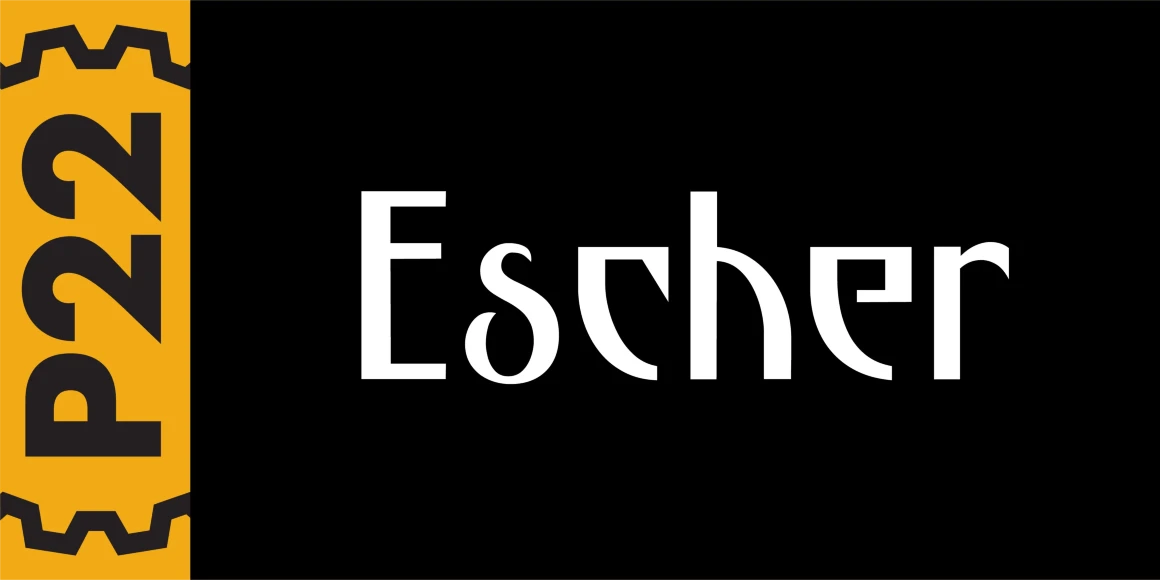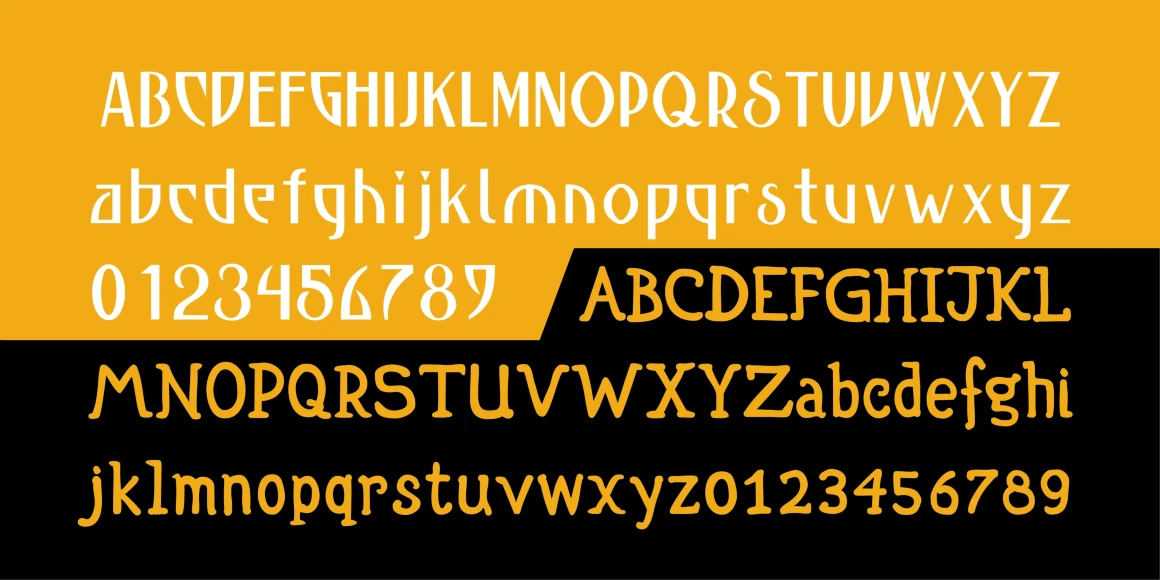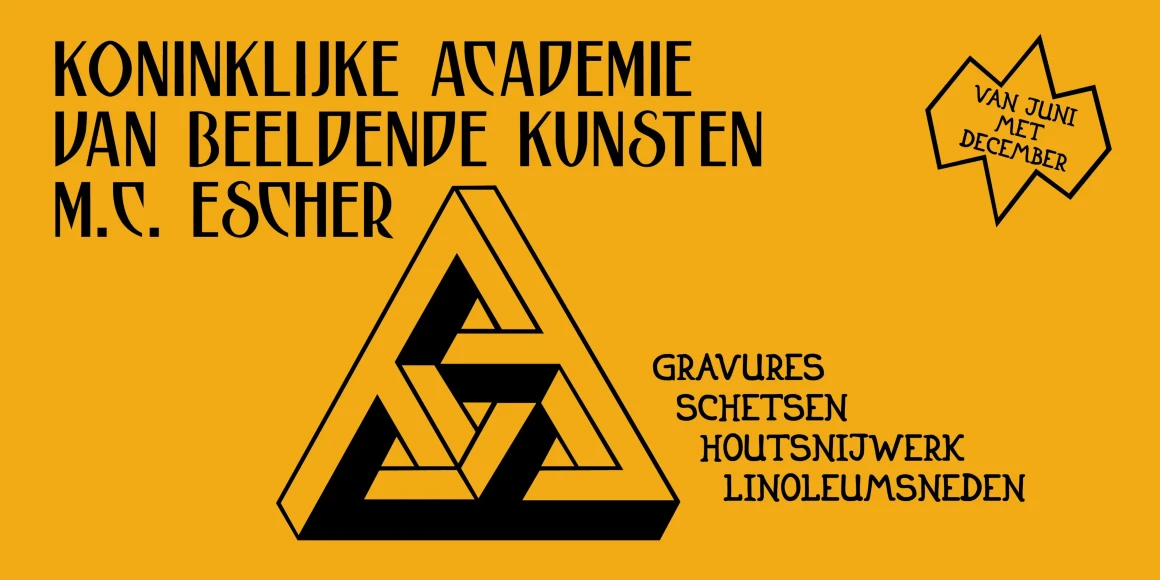
Escher
Based on the formal lettering style found in the wood engravings and lithographs of Mauritius Cornelius Escher (1898-1972).
Escher Hand
Escher Regular
Escher Extras